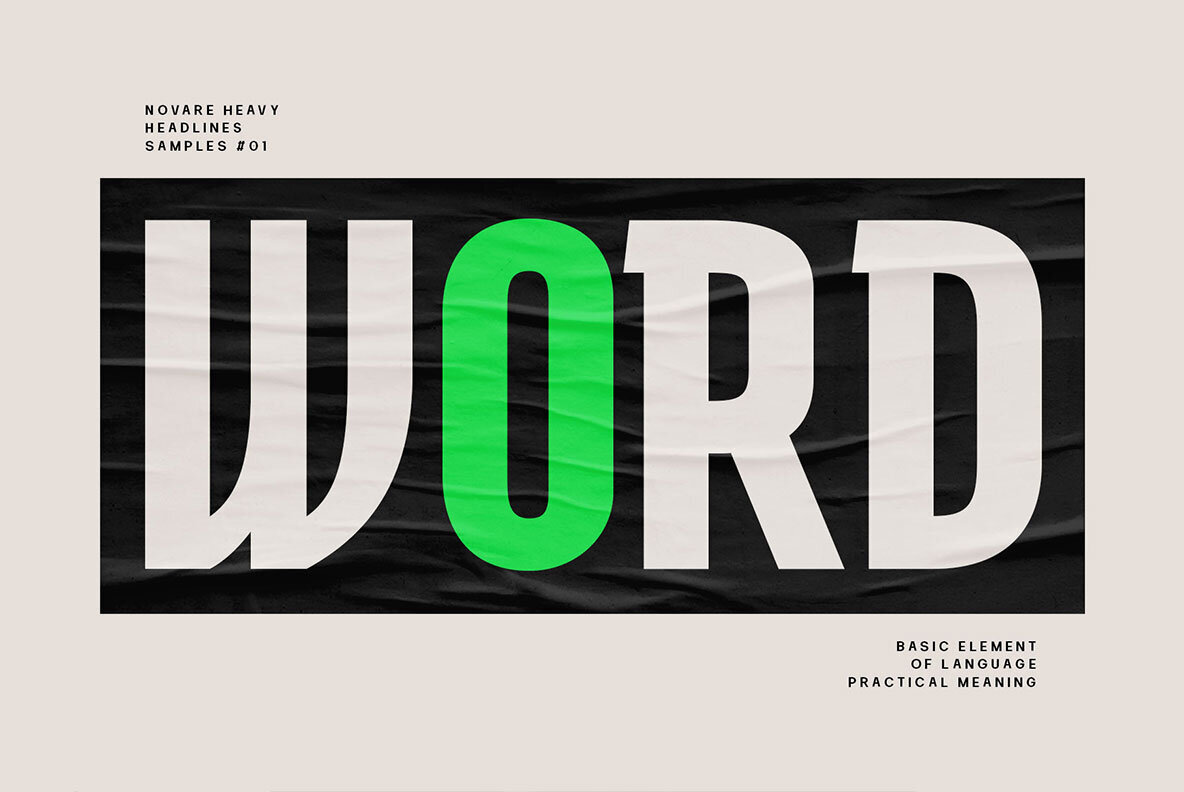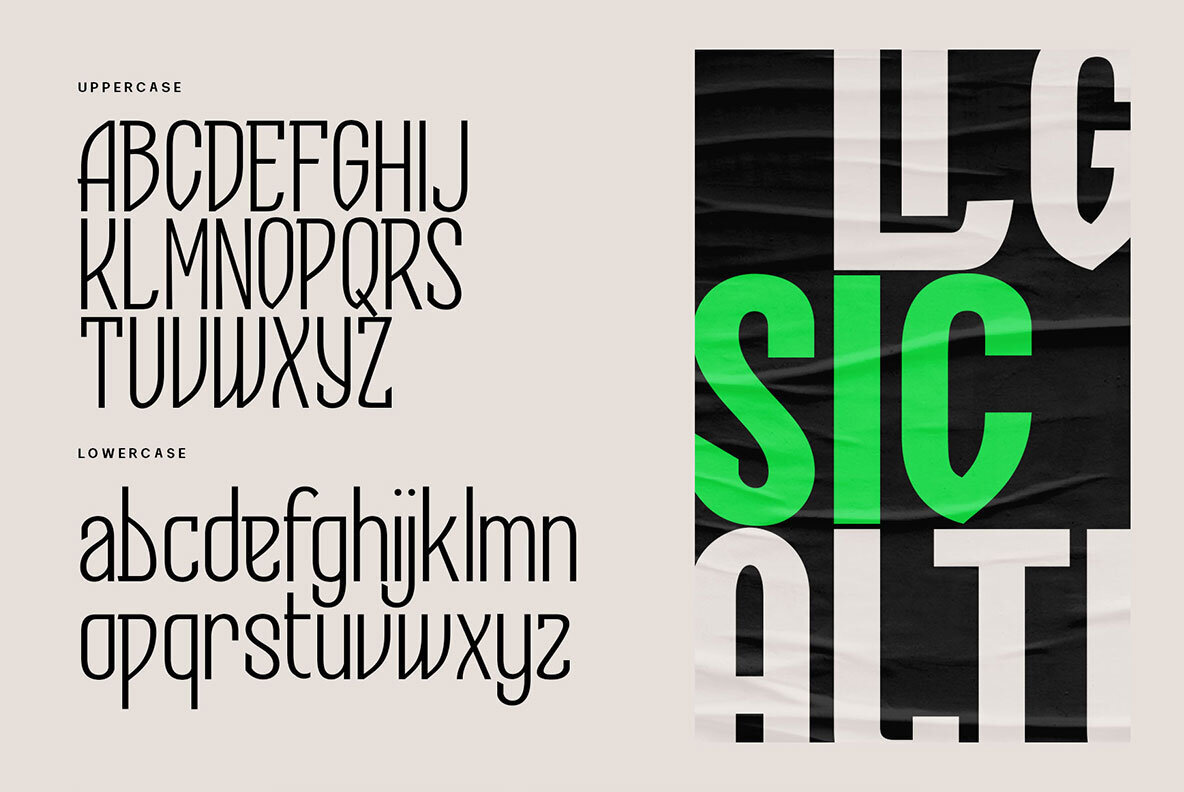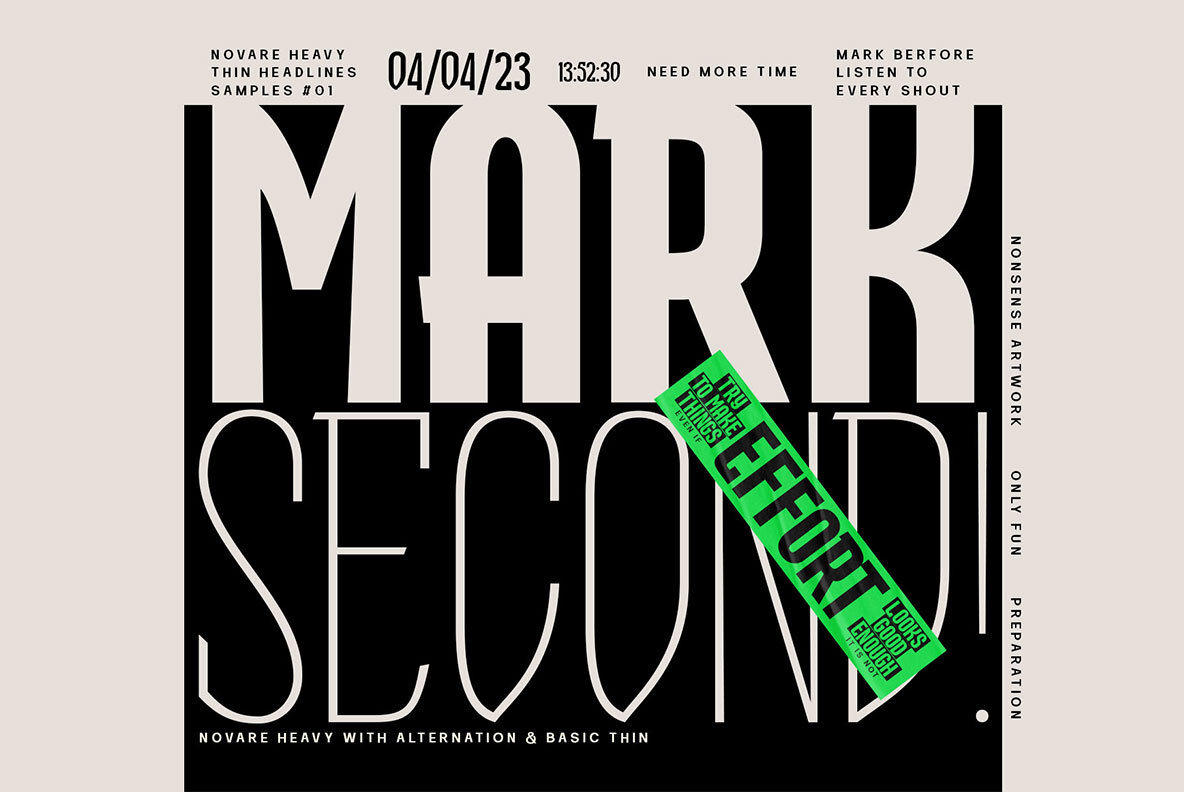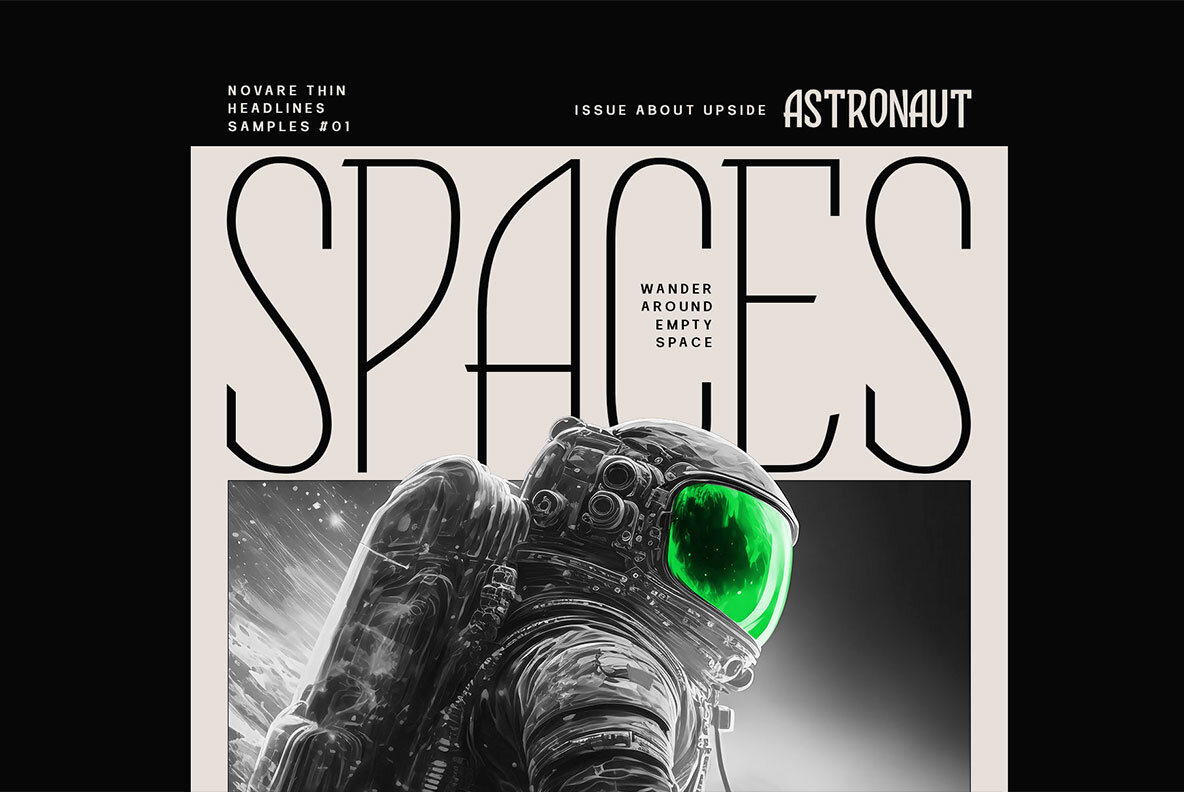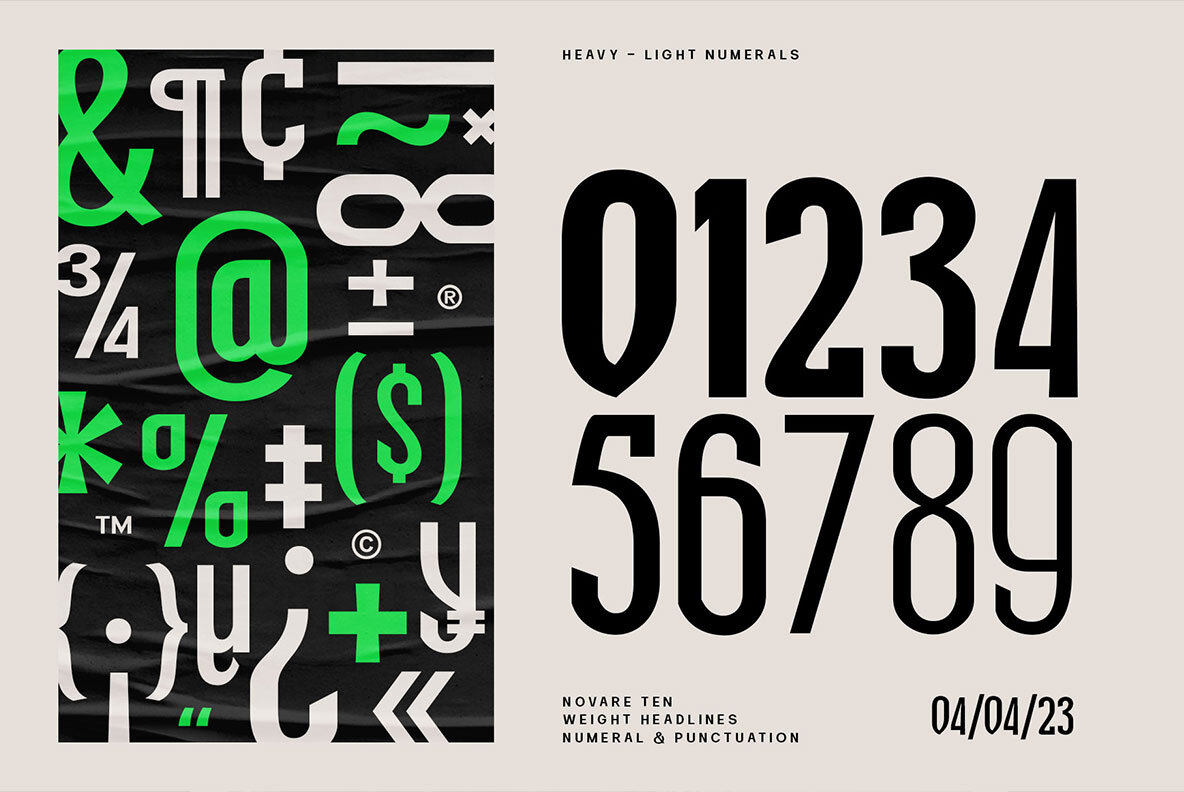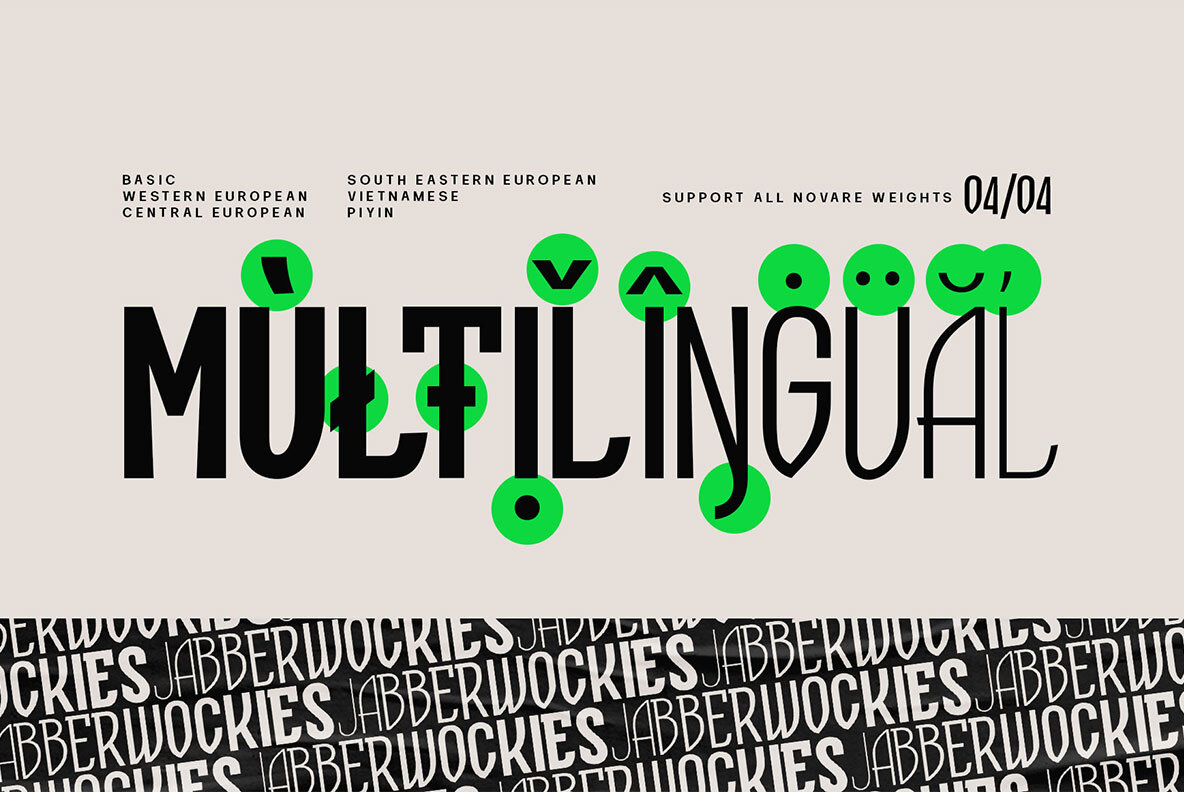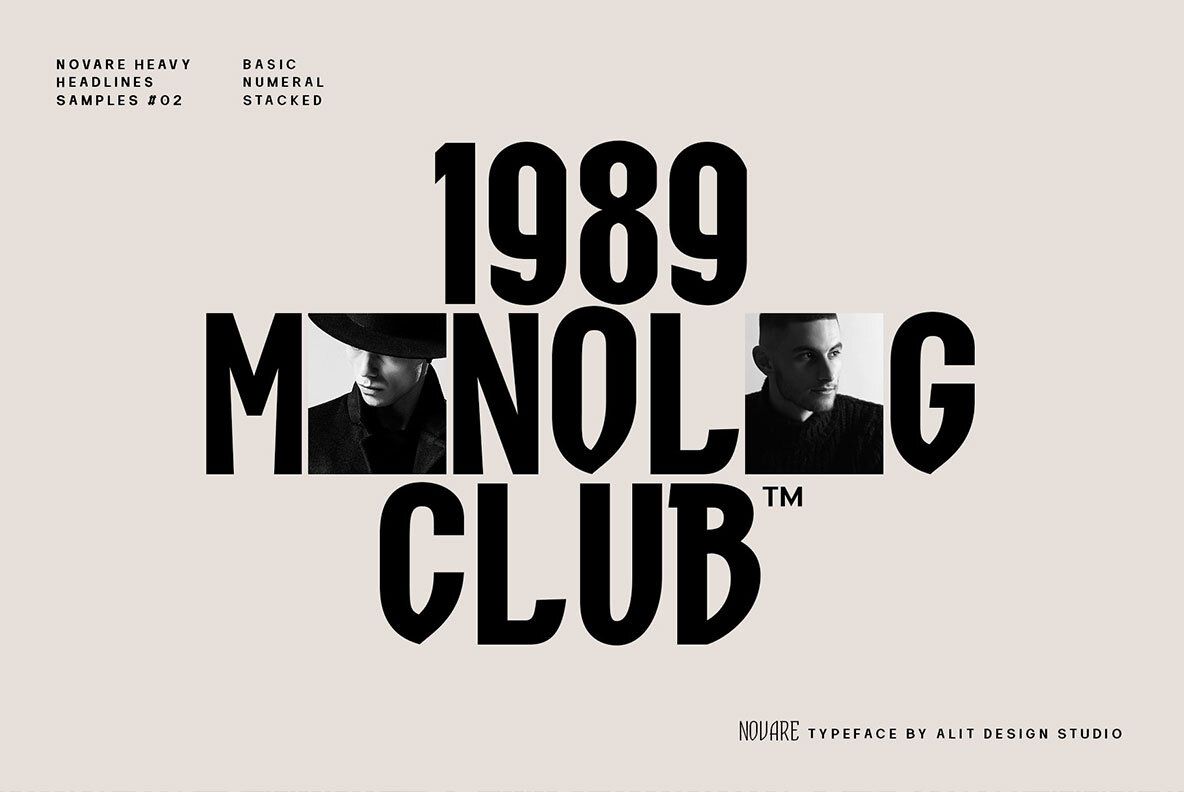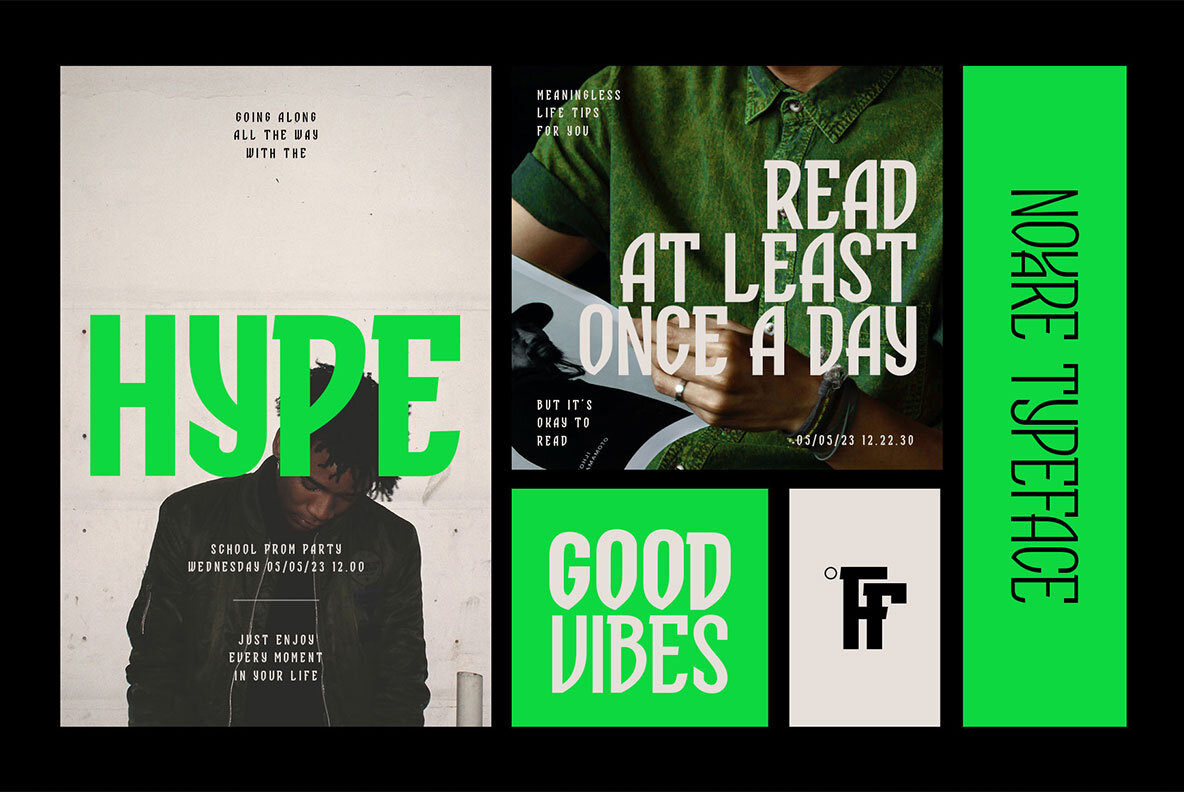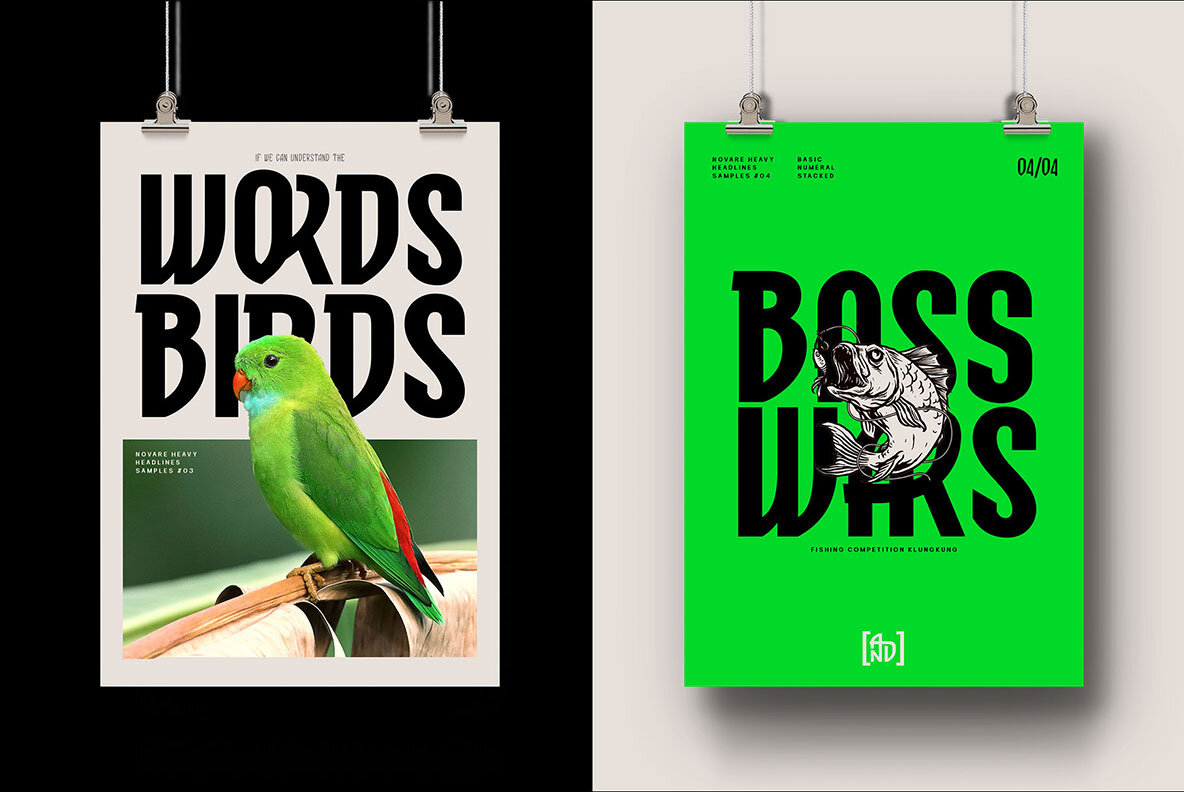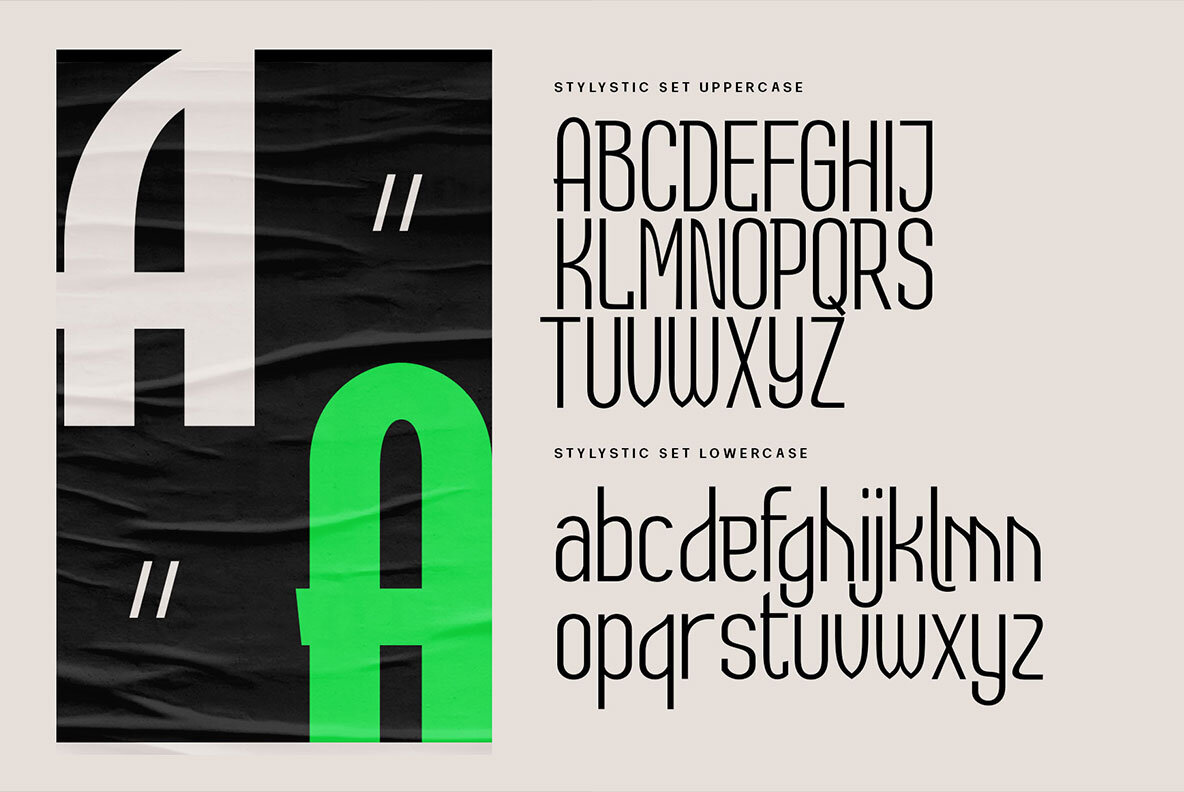
Novare Font
Introducing Novare font, a modern sans serif font family available in a range of weights from Thin to Heavy. With its high body, it remains legible even at small sizes. The font offers 600 glyphs, providing numerous typographic possibilities. Alongside the regular weight, Novare font includes a condensed version, perfect for situations with limited space. It supports Private Use Area (PUA) encoding, granting access to special characters and symbols beyond standard character sets. Novare font is versatile, suitable for various design contexts like branding, advertising, editorial, and web design. Its clean, modern aesthetic is a popular choice among designers seeking a fresh, contemporary look.